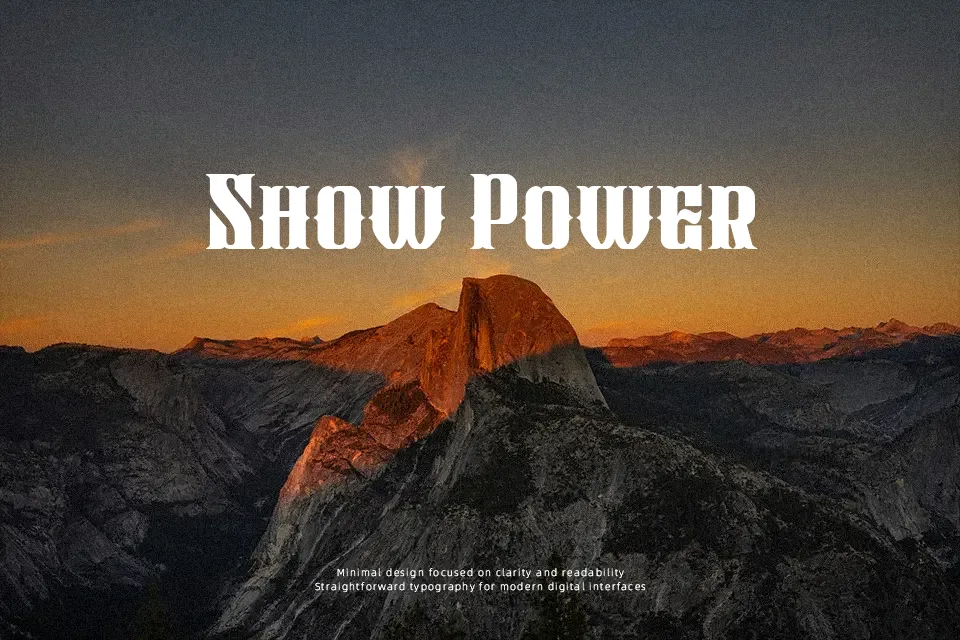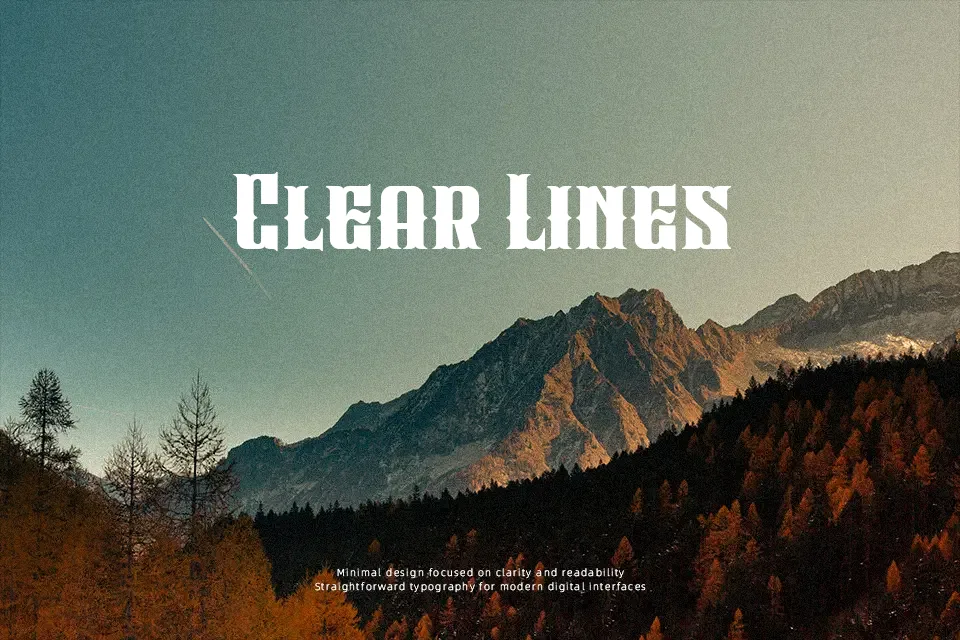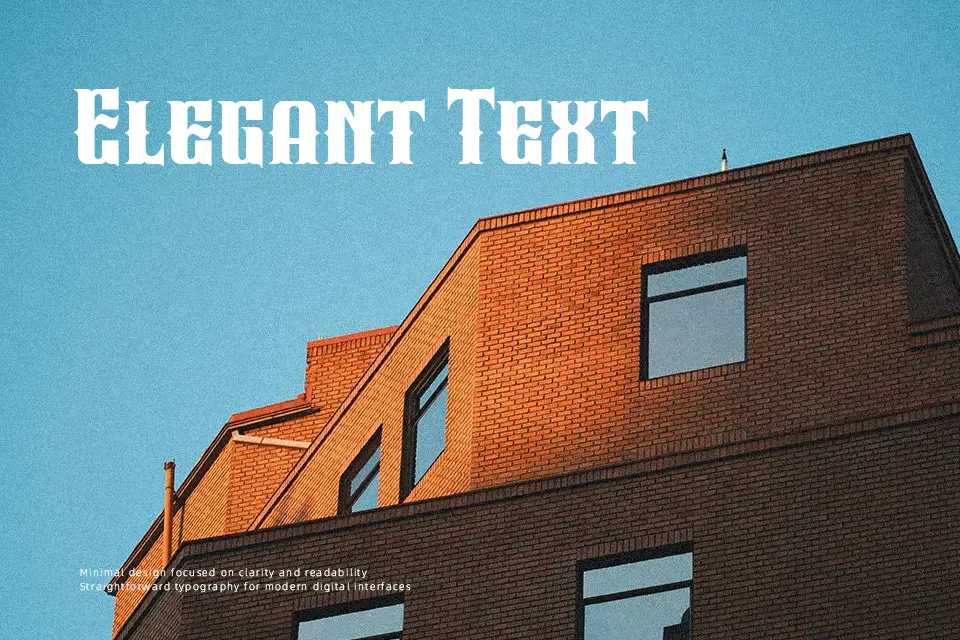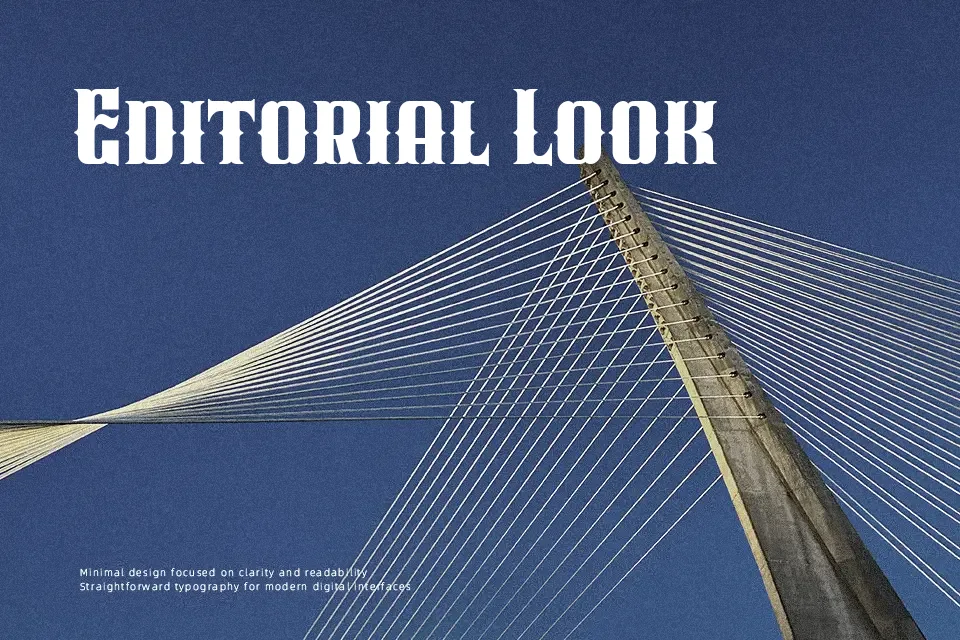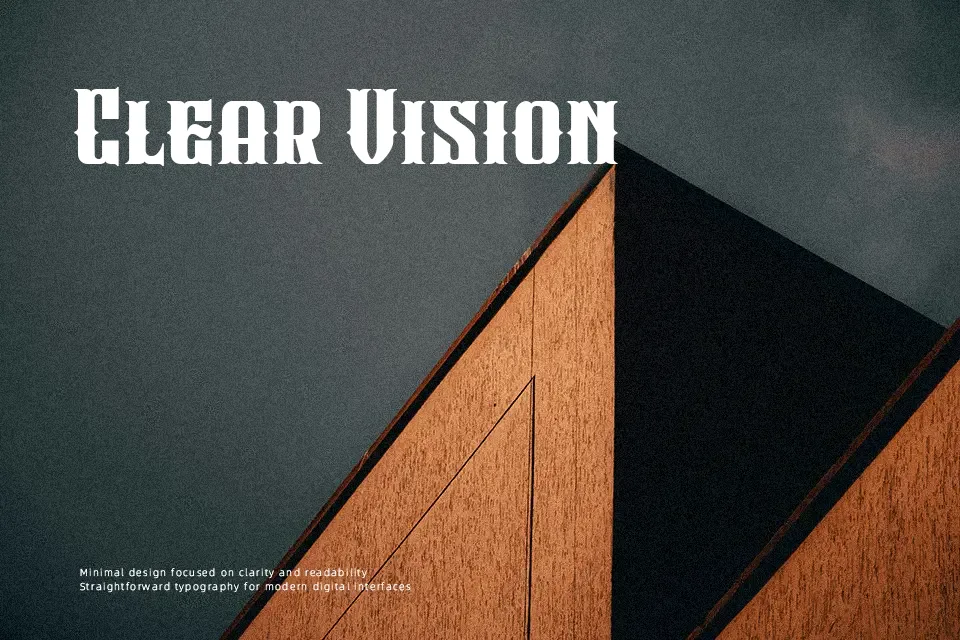
Black Slider Font
Designed by Blankids
Black Slider is a heavy display typeface drawing deep inspiration from classic Western and blackletter lettering. Visually, it features aggressive thick strokes, sharp terminals, and a tightly packed structure that creates an imposing presence. The overall impression is rugged and highly decorative, projecting a powerful aesthetic. It shines when applied to vintage streetwear graphics, bold tattoo studio wordmarks, and heavy music festival posters where a gritty vibe is necessary. However, because of its dense letterforms and intricate high-impact style, Black Slider loses legibility at small scales and should definitely be kept away from editorial body text. Compared to standard vintage serifs, it leans entirely into an unapologetic, rebellious energy that commands immediate viewer attention.
Vintage streetwear and apparel branding
High-impact music festival posters
Bold logo designs for tattoo studios
Long-form editorial body text
Corporate or minimalist brand identities
Small-scale mobile UI elements
Perfect for branding, headline, and logo, with a bold and blackletter style.